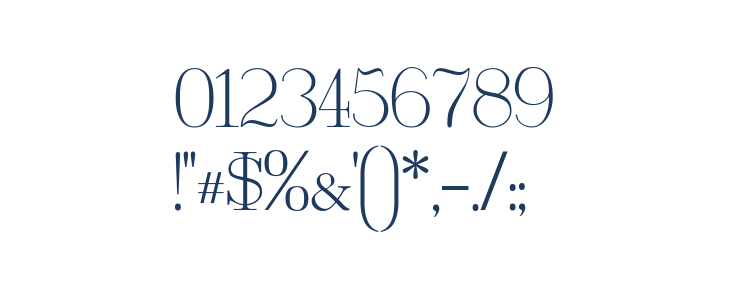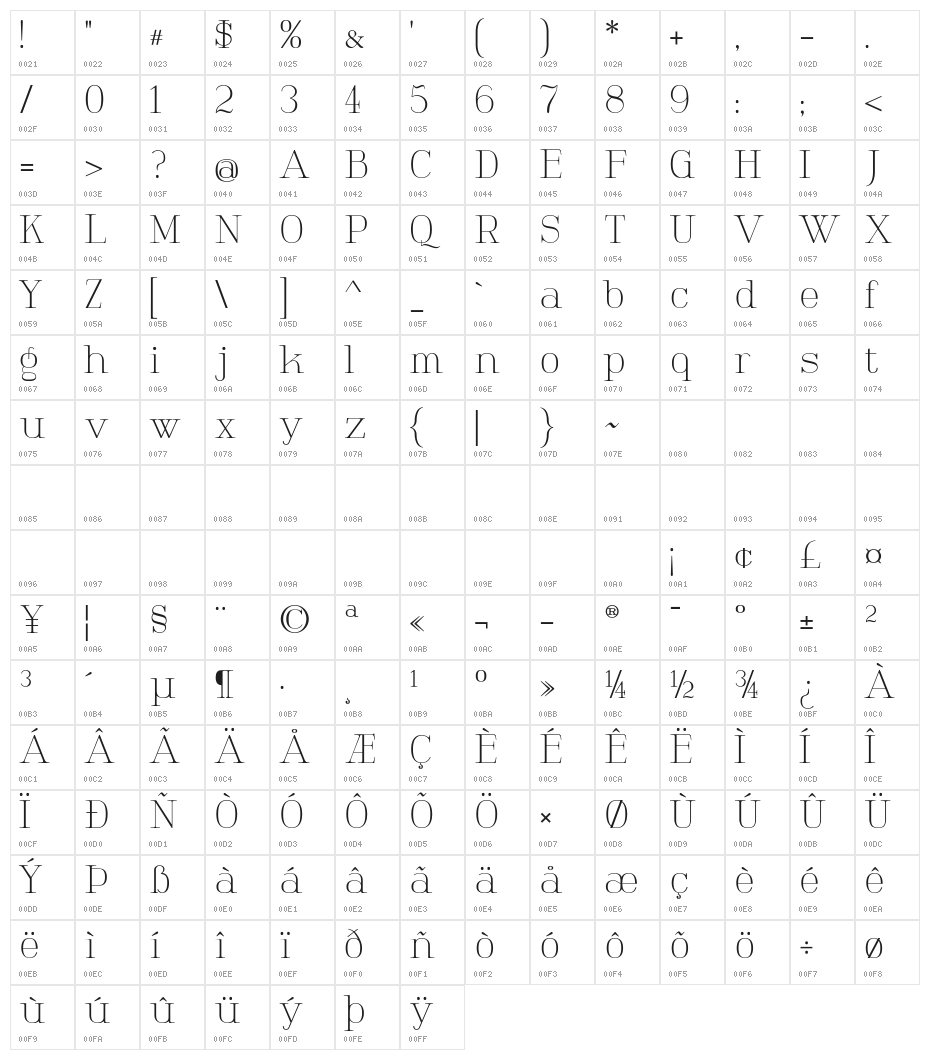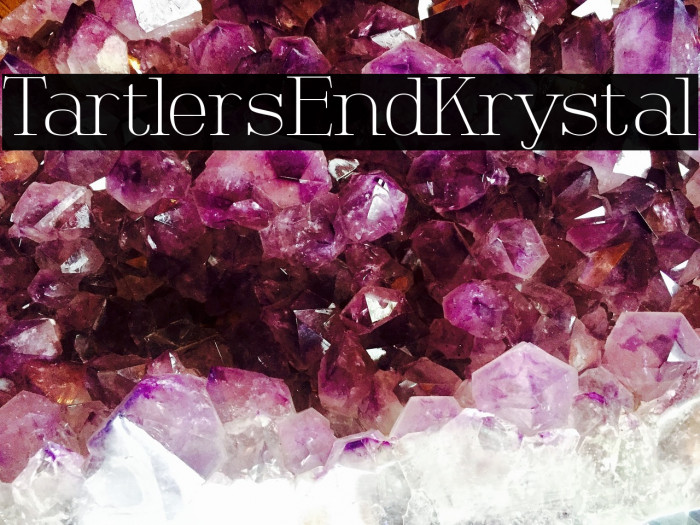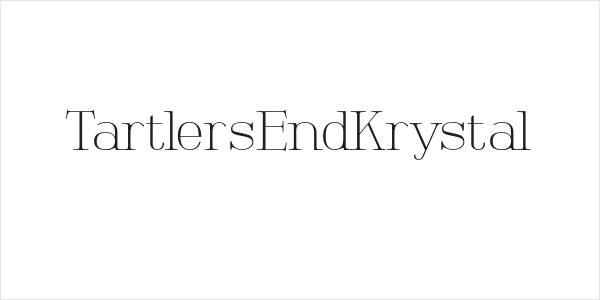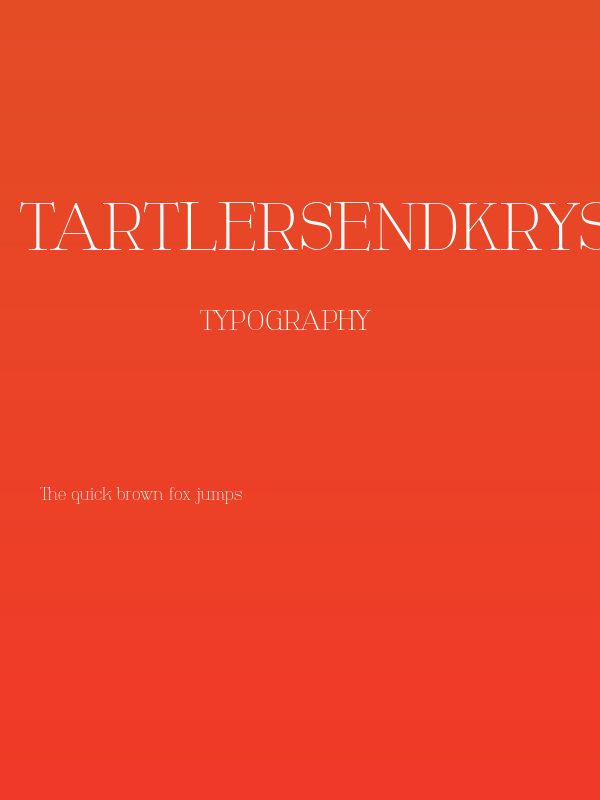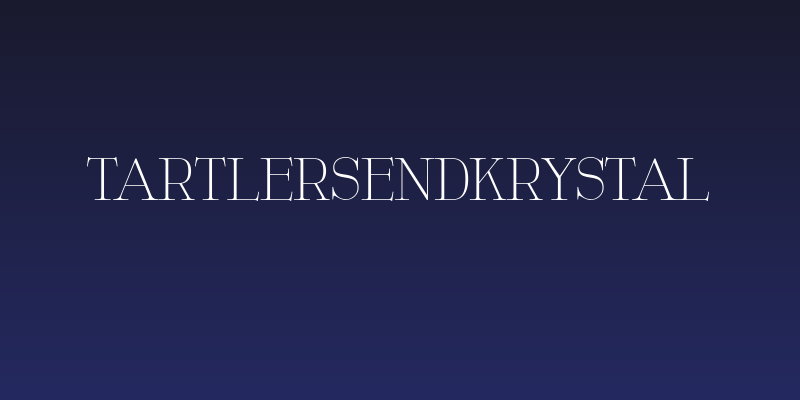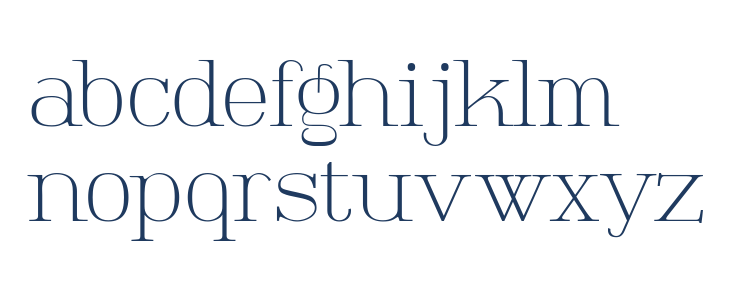
TartlersEndKrystal Font
TartlersEndKrystal Description
This font features a classic serif style with elegant, thin strokes and high contrast between thick and thin lines. The serifs are pronounced, adding a touch of sophistication and timelessness to the overall appearance. The uppercase letters are tall and commanding, while the lowercase letters maintain a consistent flow with gentle curves. The numerals are distinct and clear, making them easily readable. Special characters are well-integrated, maintaining the font's cohesive aesthetic. This font is suitable for projects that require a refined and traditional look.